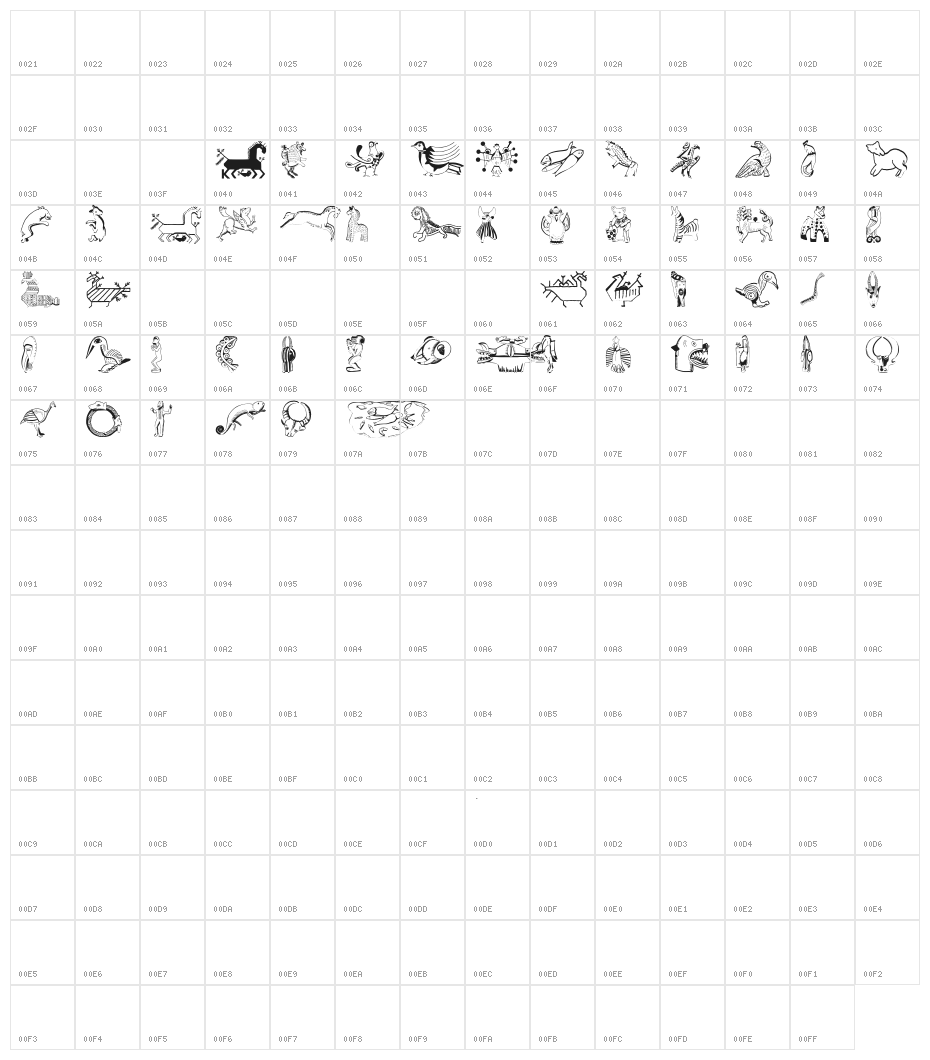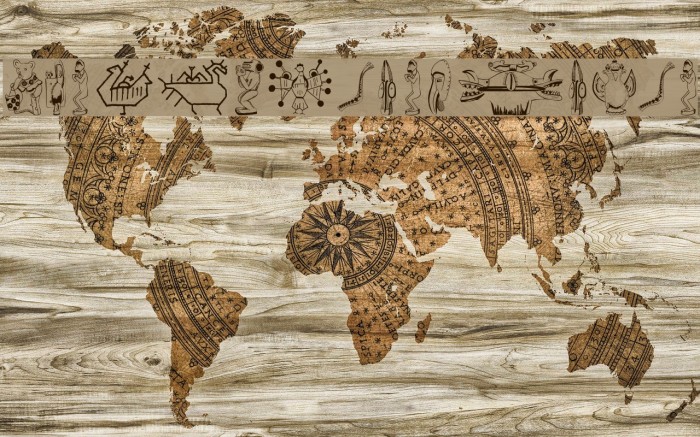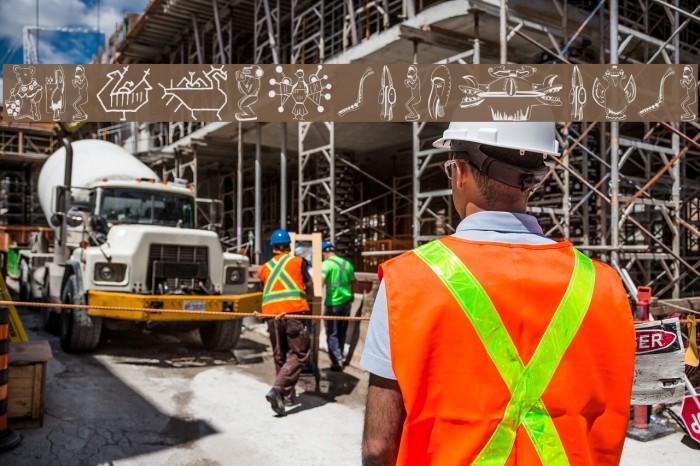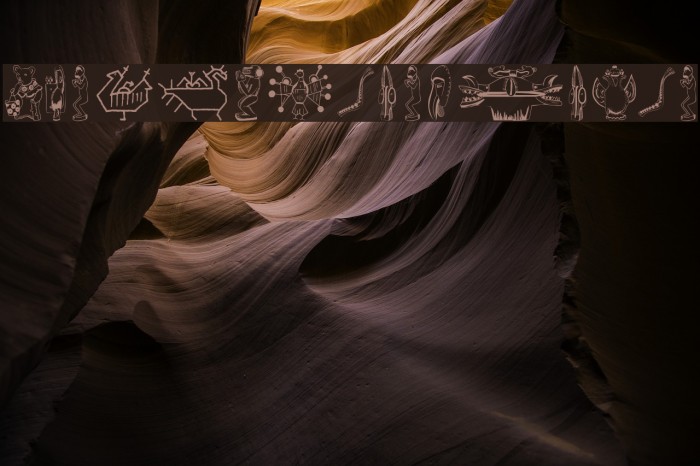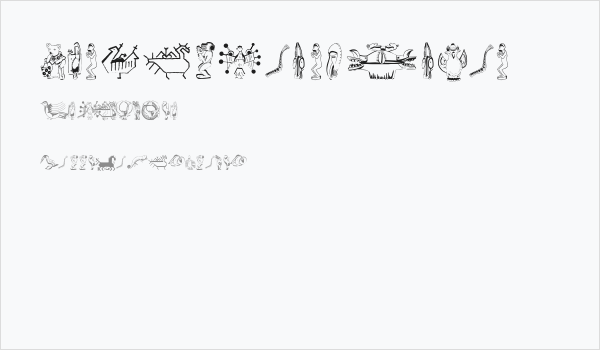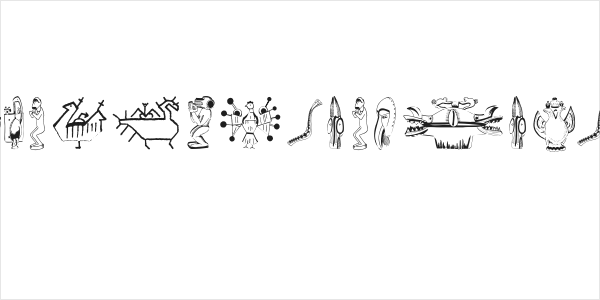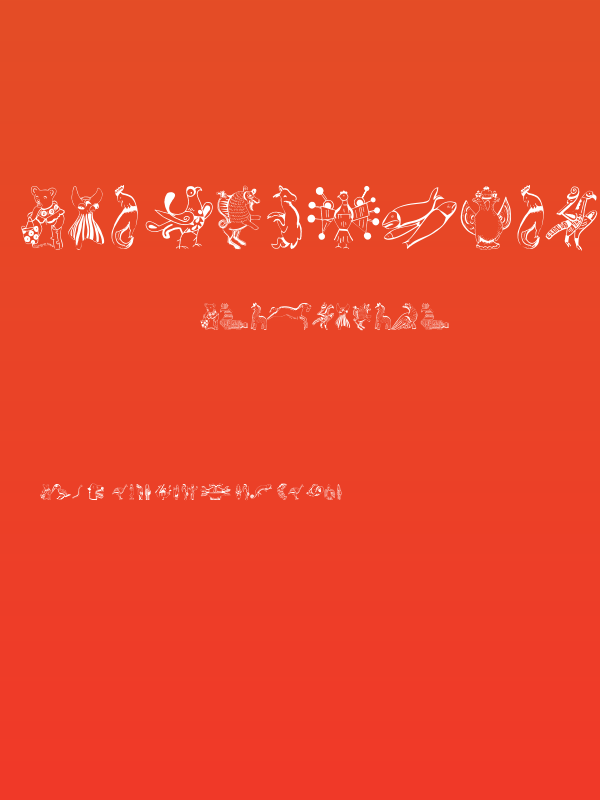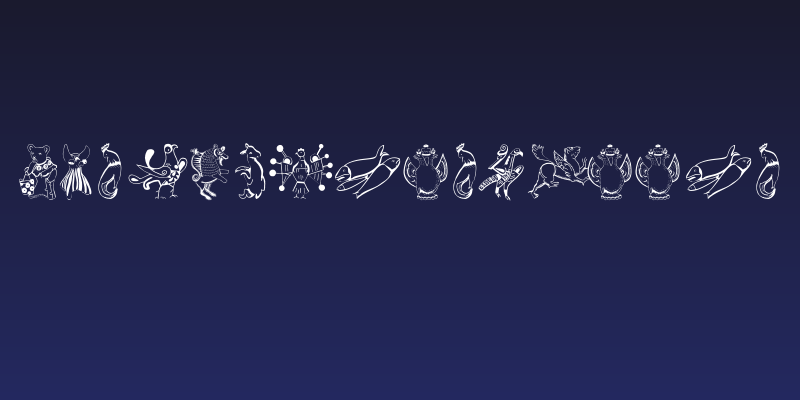
TribalDesignsSei Font
TribalDesignsSei Description
This set of tribal designs is a collection of intricate and artistic symbols that resemble various animals and abstract forms. Each character is uniquely crafted, showcasing a blend of cultural motifs and artistic expression. The designs are highly detailed, with a focus on symmetry and balance, often incorporating elements that suggest movement and life. The use of bold lines and contrasting patterns gives each symbol a distinct presence, making them stand out individually while maintaining a cohesive style across the set. These designs are reminiscent of traditional tribal art, capturing the essence of cultural storytelling and symbolism through visual representation.
| Use Case | Logos, Decorative art, Cultural projects |
| Proposed Projects | These designs are perfect for use in cultural exhibitions, educational materials on tribal art, decorative elements in fashion, or as unique branding elements for businesses seeking a tribal aesthetic. |